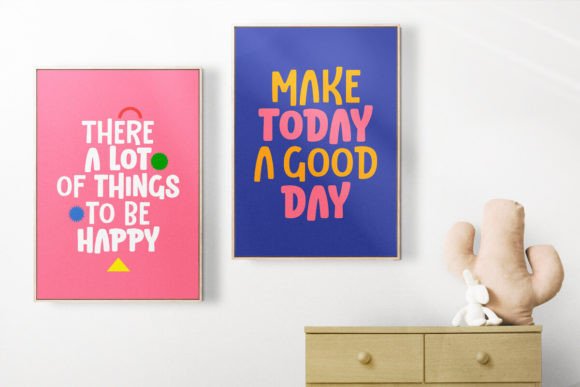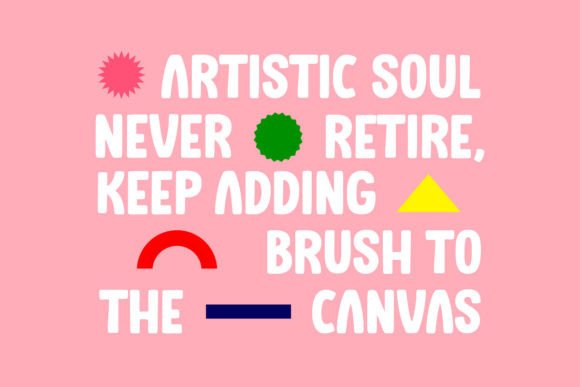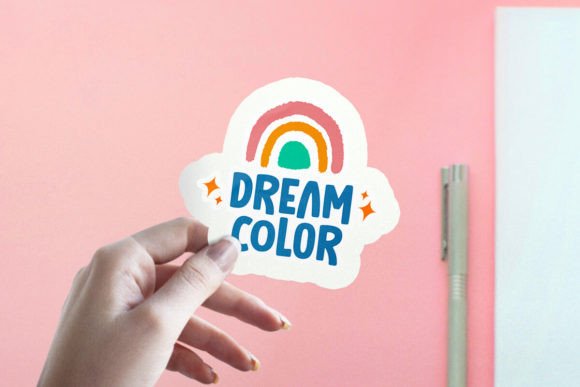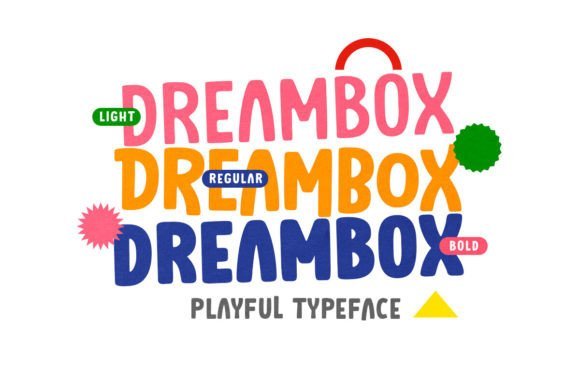
Introduction to Dreambox Font
Dreambox is a playful and whimsical font family designed to bring a sense of joy and creativity to your projects.
Its friendly curves and lively character make it perfect for children’s books, playful branding, party invitations, and any design that needs a touch of fun This font have three weight, Light, Regular, Bold, that you can choose or use at the same time.
Key Features of Dreambox Font
Why Choose Dreambox Font?
Dreambox Font offers exceptional quality and versatility, making it a valuable addition to your design toolkit. Whether you’re creating for personal projects or commercial use, Dreambox Font delivers professional results.